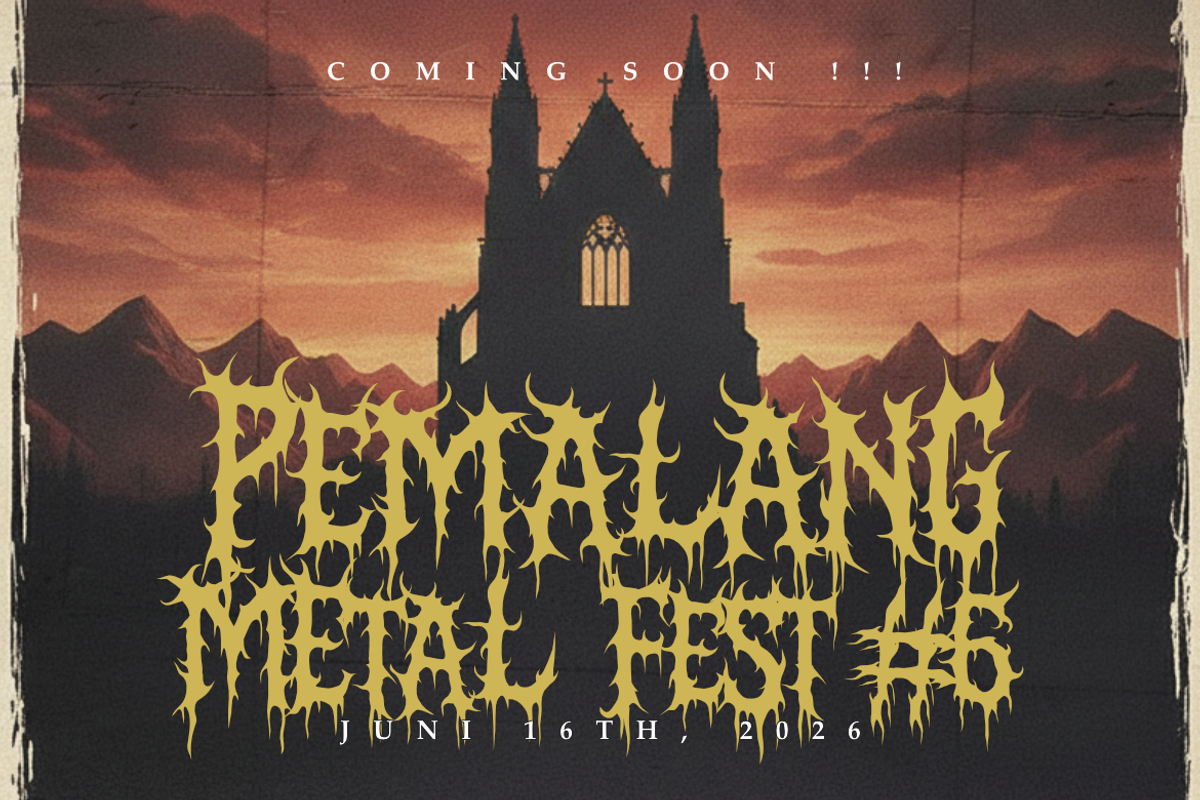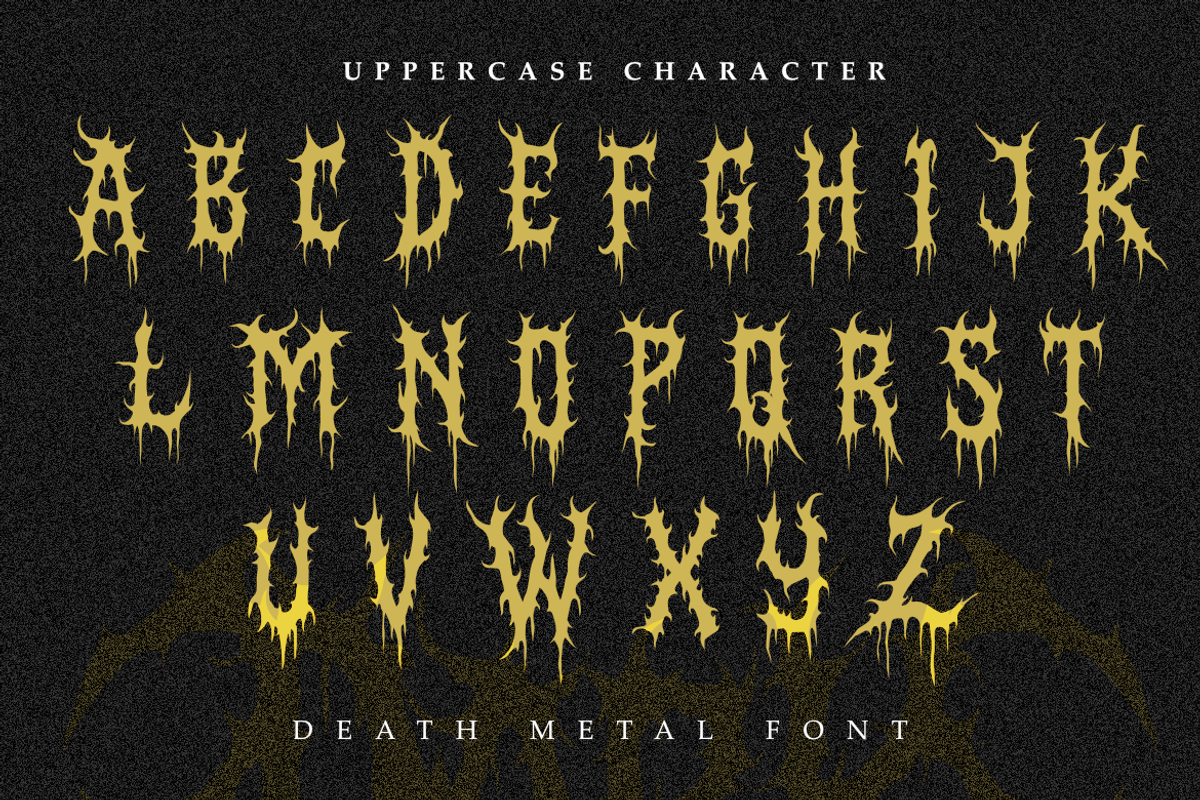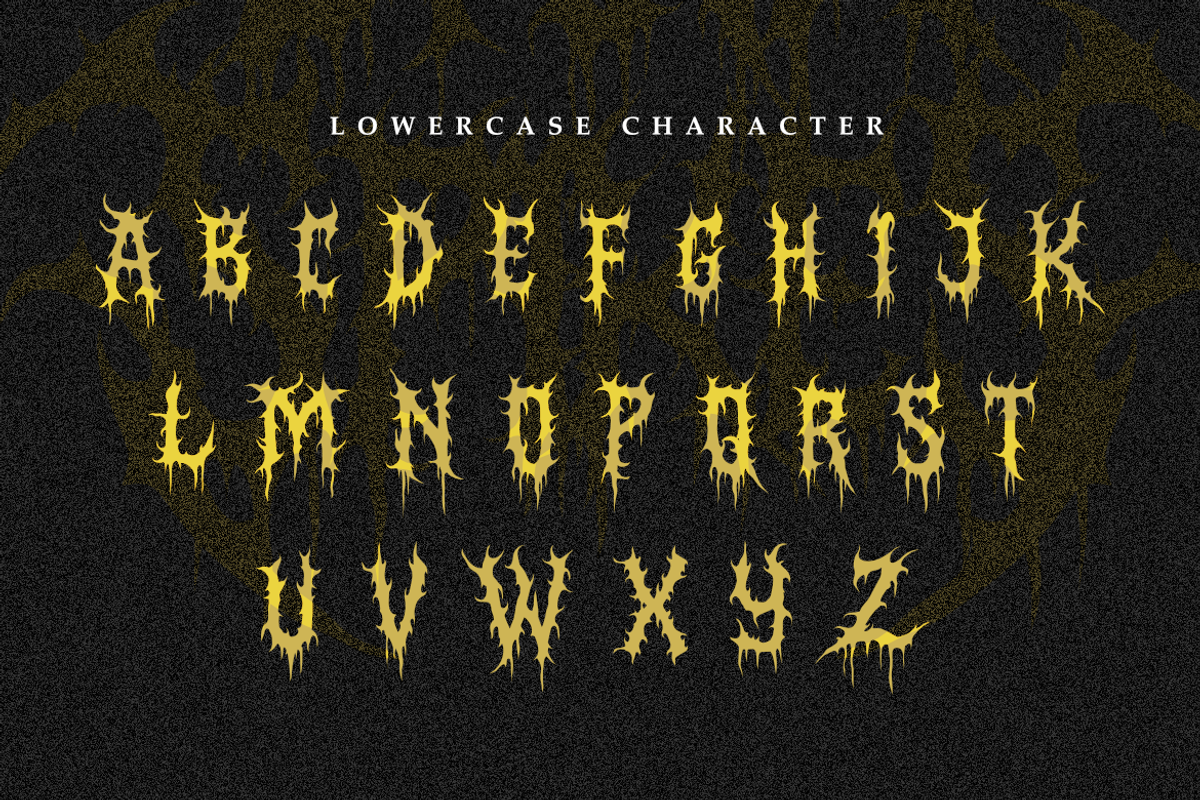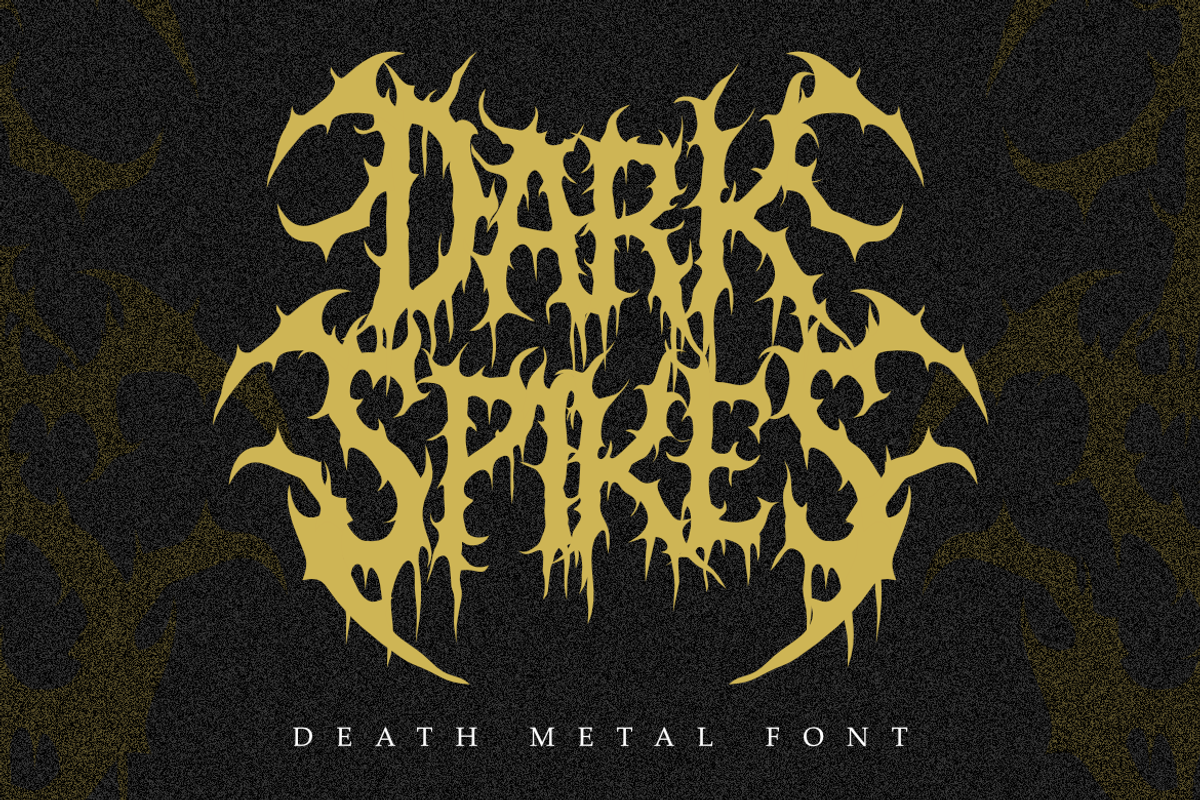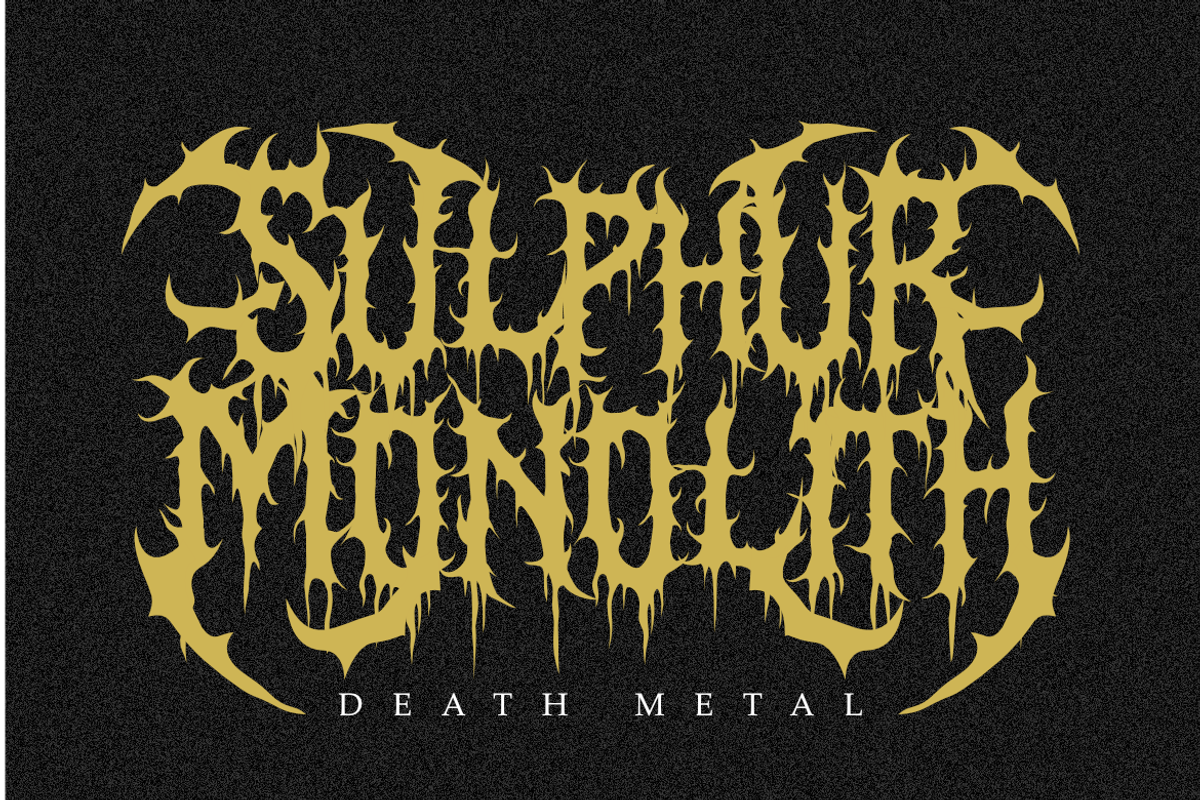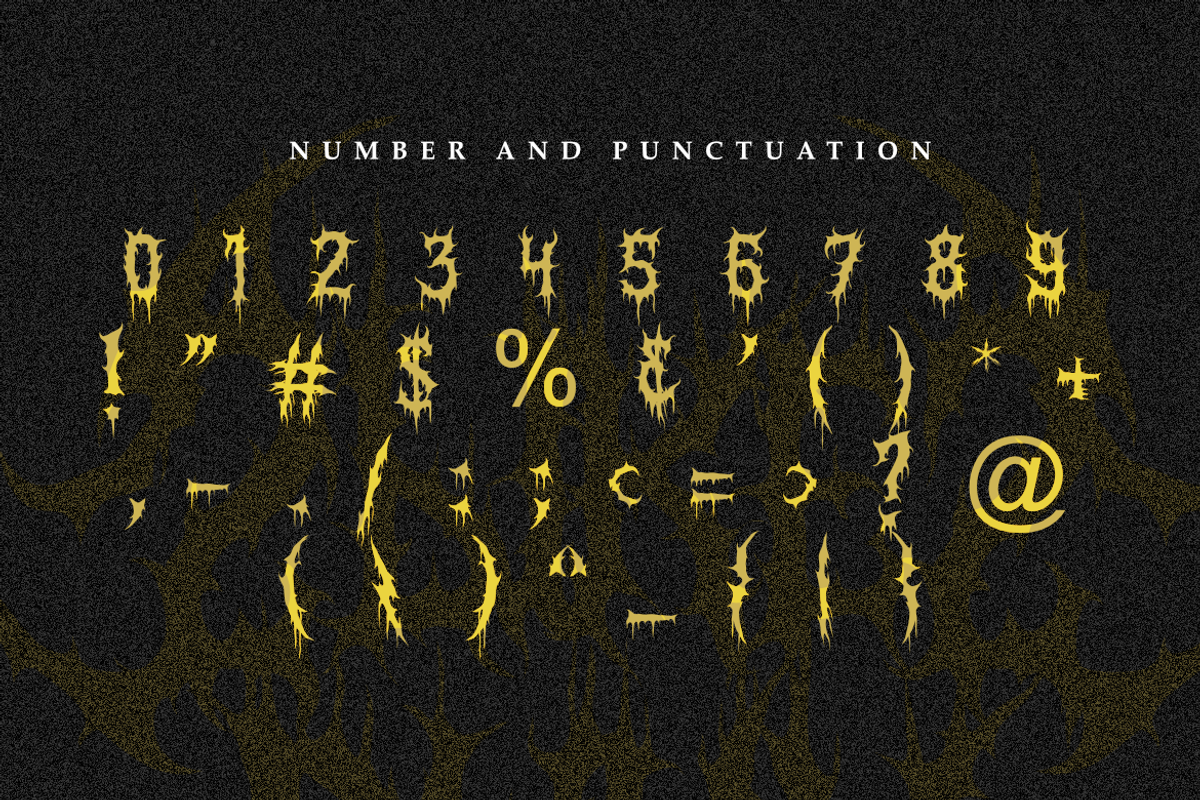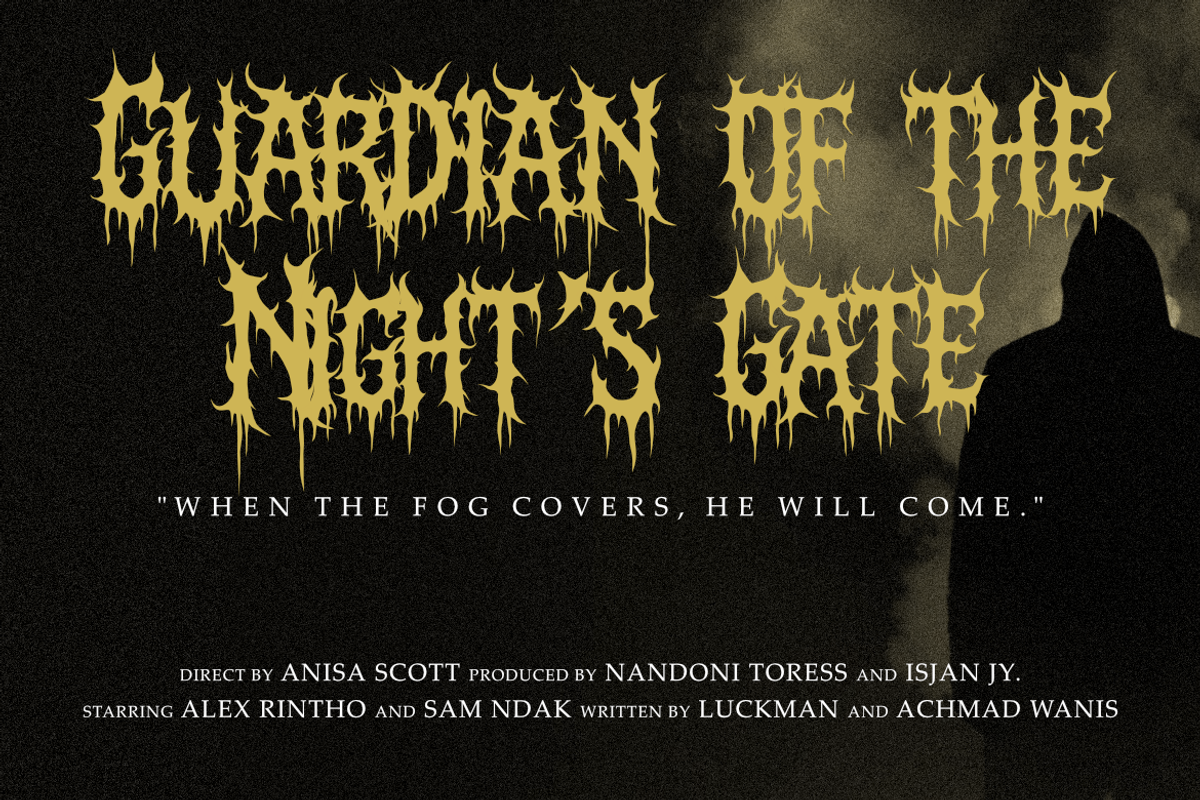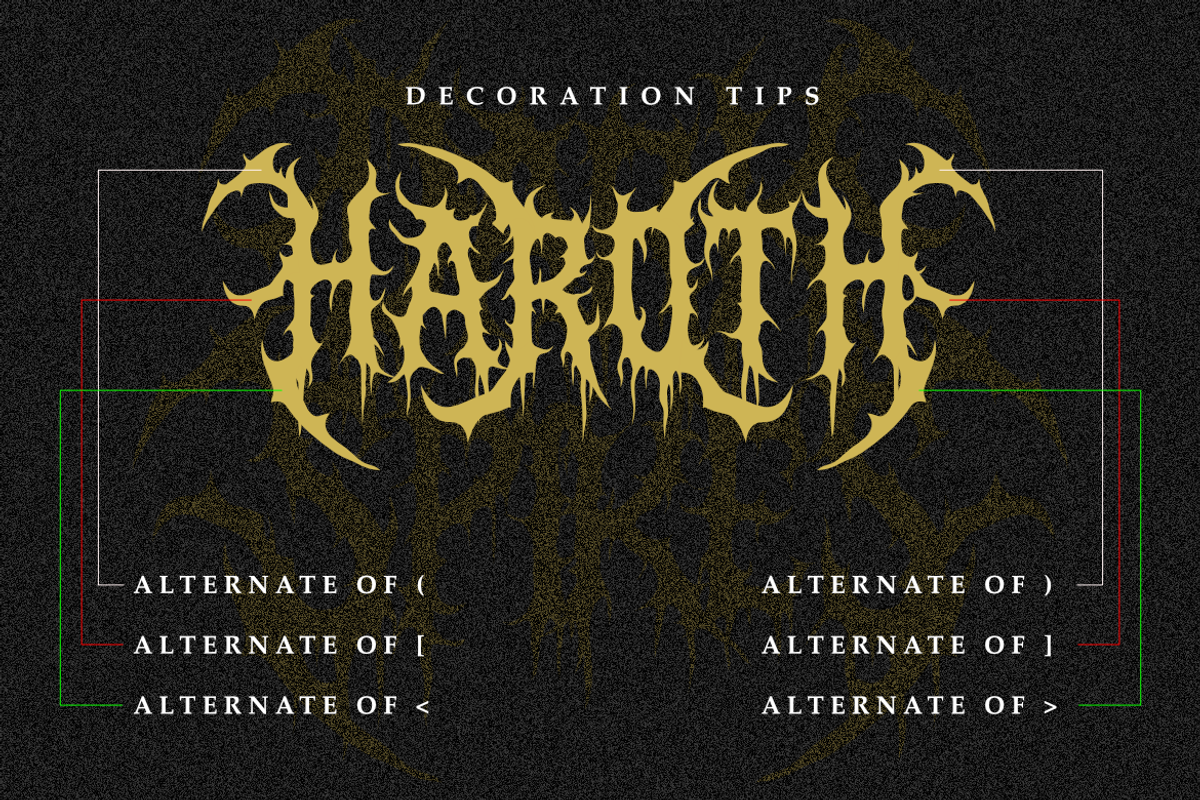
Dark Spikes | Brutal Death Metal
Unleash the darkness with Dark Spikes, a font designed for those who need a touch of brutality in their creative arsenal. This font is a tribute to the extreme music scene, featuring intricate, sharp details that mimic thorns, roots, and visceral textures.
Whether you are working on a logo for a metal band, a heavy-hitting streetwear brand, or a horror-themed event, Dark Spikes delivers a powerful visual punch. Its raw and unrefined look makes it ideal for large-scale headlines where texture and attitude are priority.